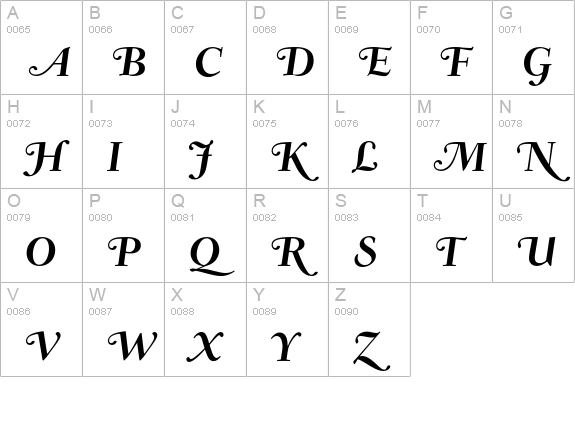
Fairfield LH 76 Swash Bold Italic Old Style Figures Font Details
Fairfield LH 76 Swash Bold Italic Old Style Figures is a strong, high-contrast, italic variant in the Fairfield typeface family \xE2\x80\x94 well suited to headlines, attention-grabbing titles, and strong calls-to-action.
Fairfield LH 76 Swash Bold Italic Old Style Figures font is a beautiful and elegant typeface that exudes sophistication and charm. The intricate swashes and bold, italic styling make this font perfect for adding a touch of flair to any design project. This font features old-style figures that add a timeless and classic feel to your text. Whether you are designing invitations, posters, or branding materials, Fairfield LH 76 Swash Bold Italic Old Style Figures font will make your text stand out and leave a lasting impression. Best of all, this font is available for free download at FontsMarket.com. You can easily access this stunning typeface and start using it in your projects right away. Don't miss out on the opportunity to add a touch of elegance to your designs with Fairfield LH 76 Swash Bold Italic Old Style Figures font. Download it now and elevate your typography game!